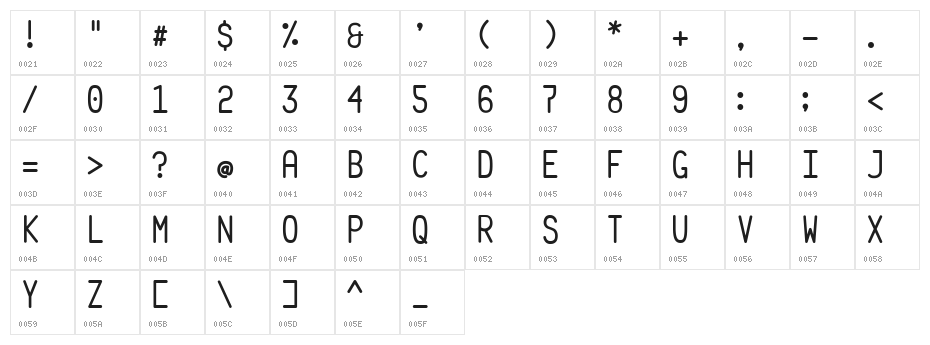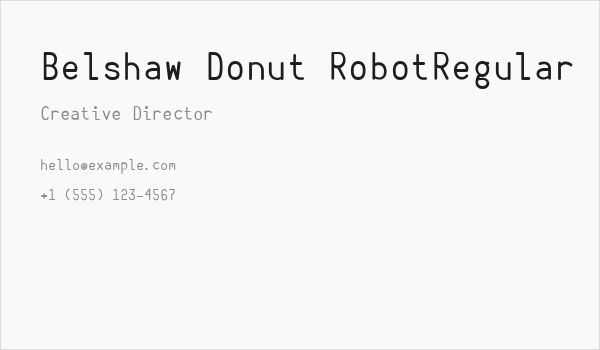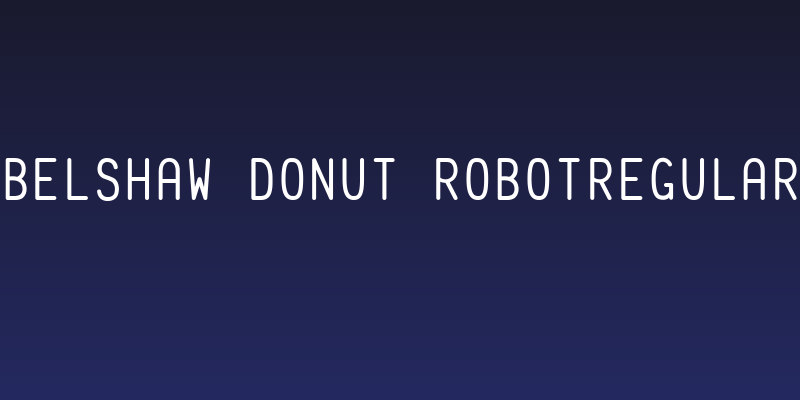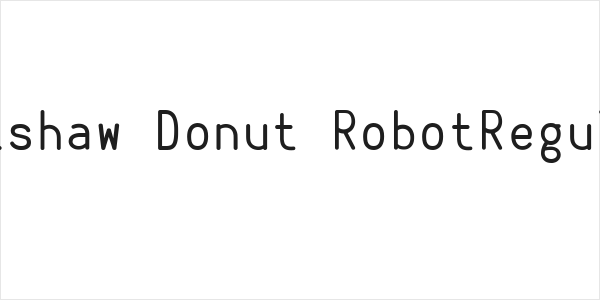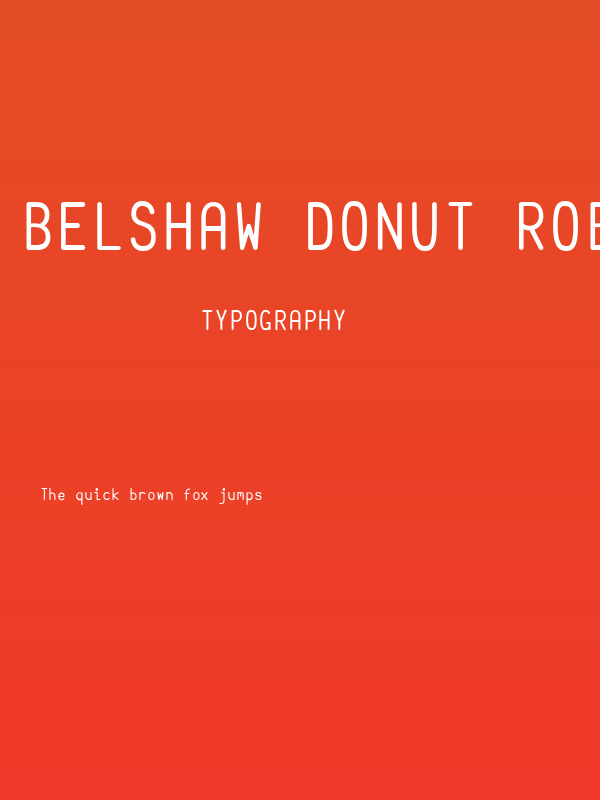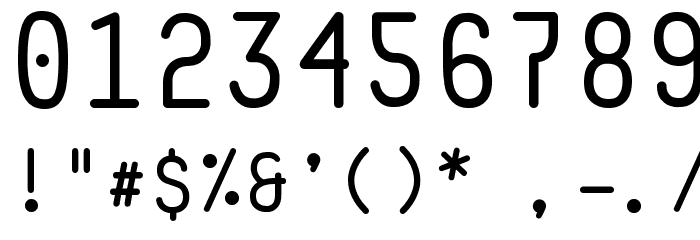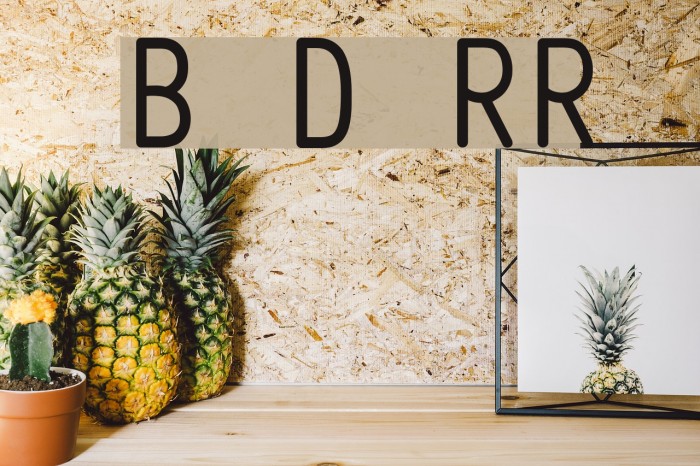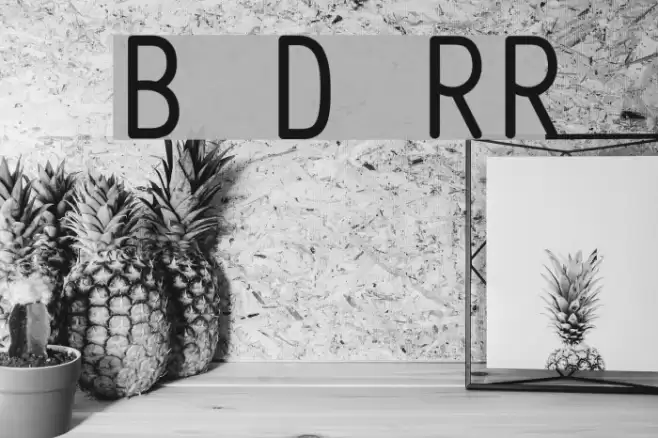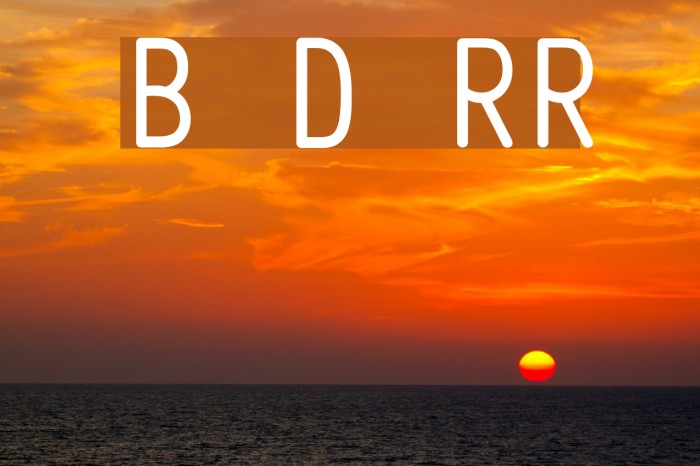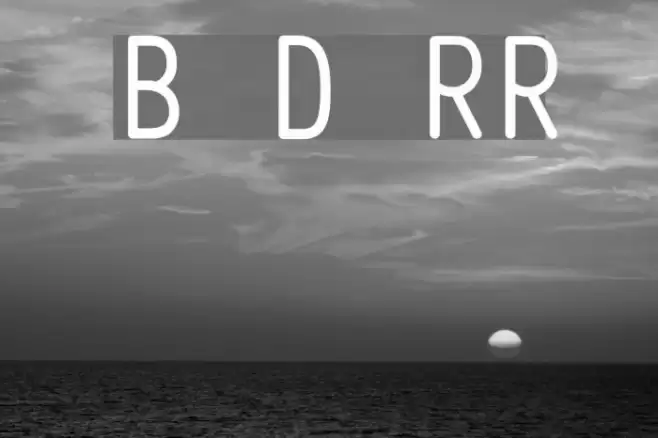
Belshaw Donut RobotRegular Font
Belshaw Donut RobotRegular Description
This font features a clean and modern sans-serif design with rounded edges, giving it a friendly and approachable appearance. The characters are evenly spaced, providing a balanced and harmonious look. The uppercase letters are slightly taller than the lowercase, maintaining a consistent line weight throughout. The numerals are clear and easy to read, making them suitable for various applications. Special characters are well-defined and integrate seamlessly with the overall style. This font's simplicity and clarity make it versatile for both digital and print media.
| Use Case | Headlines, Body text, Logos |
| Proposed Projects | Ideal for branding, signage, user interfaces, and educational materials due to its readability and friendly appearance. |